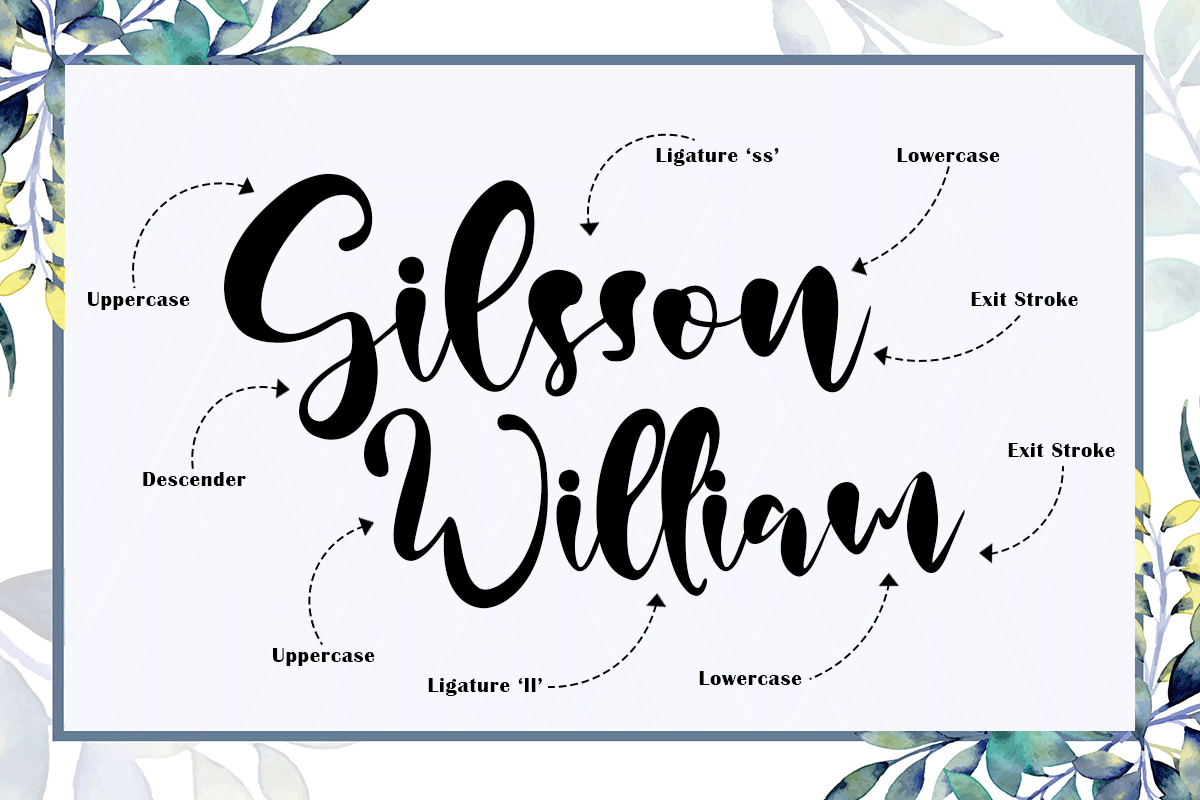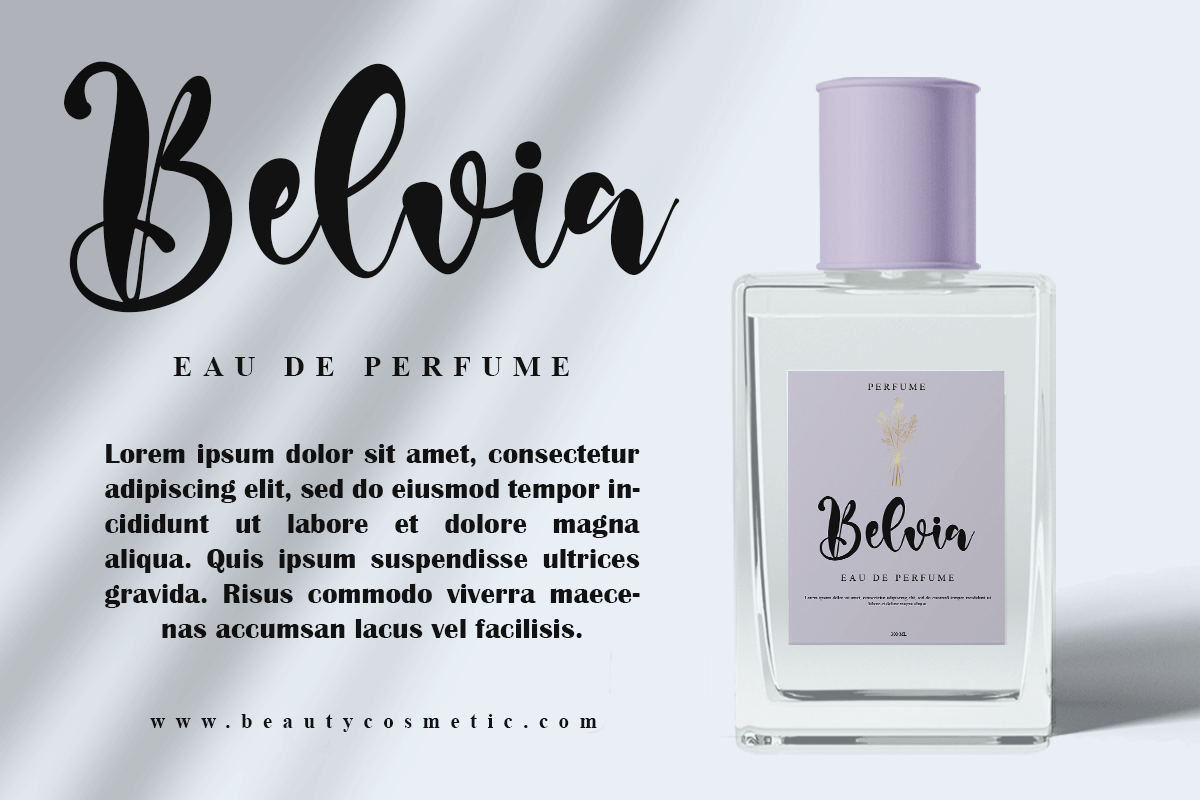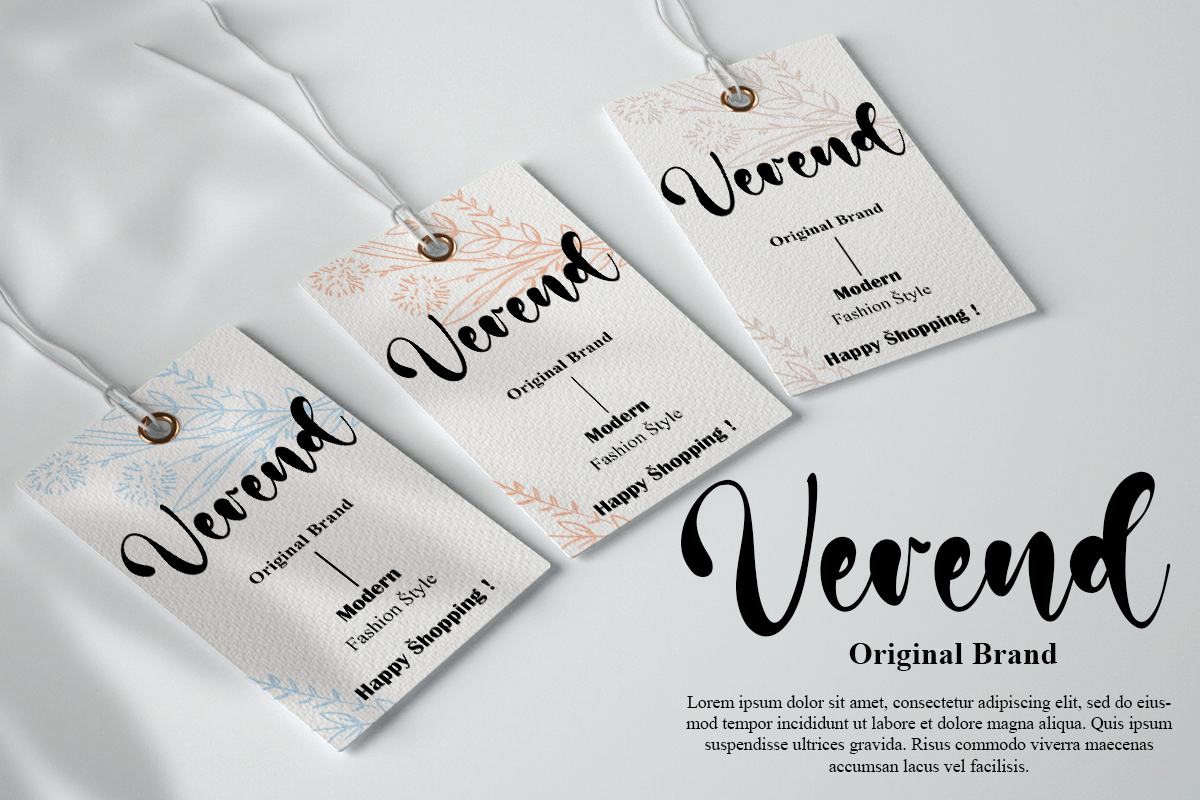
Rain Lily Free Font
Rain Lily Free Font, a contemporary and whimsical handwritten script font, is an excellent choice for crafters and designers alike. This delightful font is a perfect fit for a wide range of projects including logos, branding endeavors, labels, photography enhancements, watermarks, special events, and any of your charming creative ventures requiring an exquisite script touch. This free typeface was designed by a talentedΒ Kong Font. If you like it don’t forget to check out the full version.